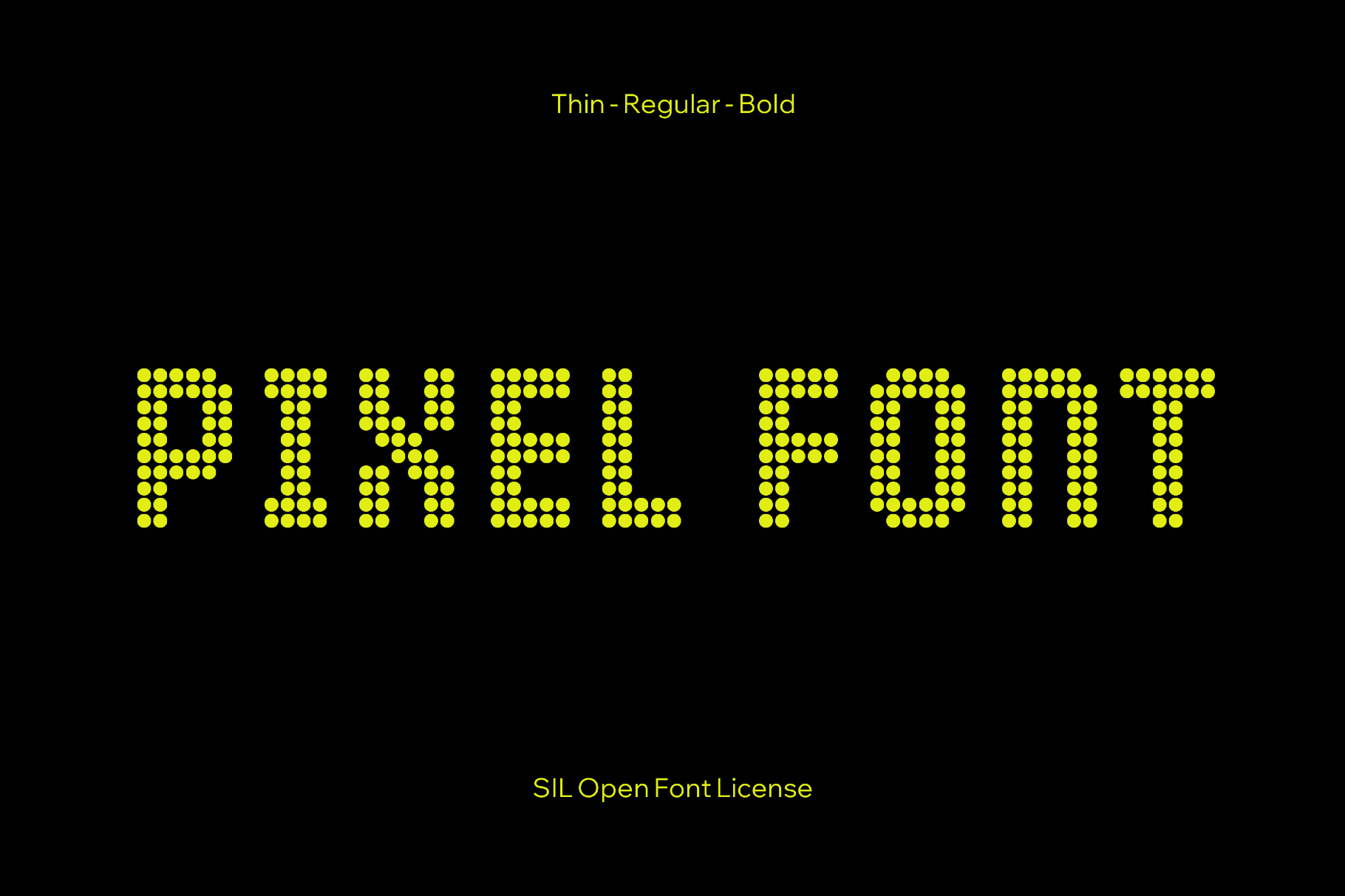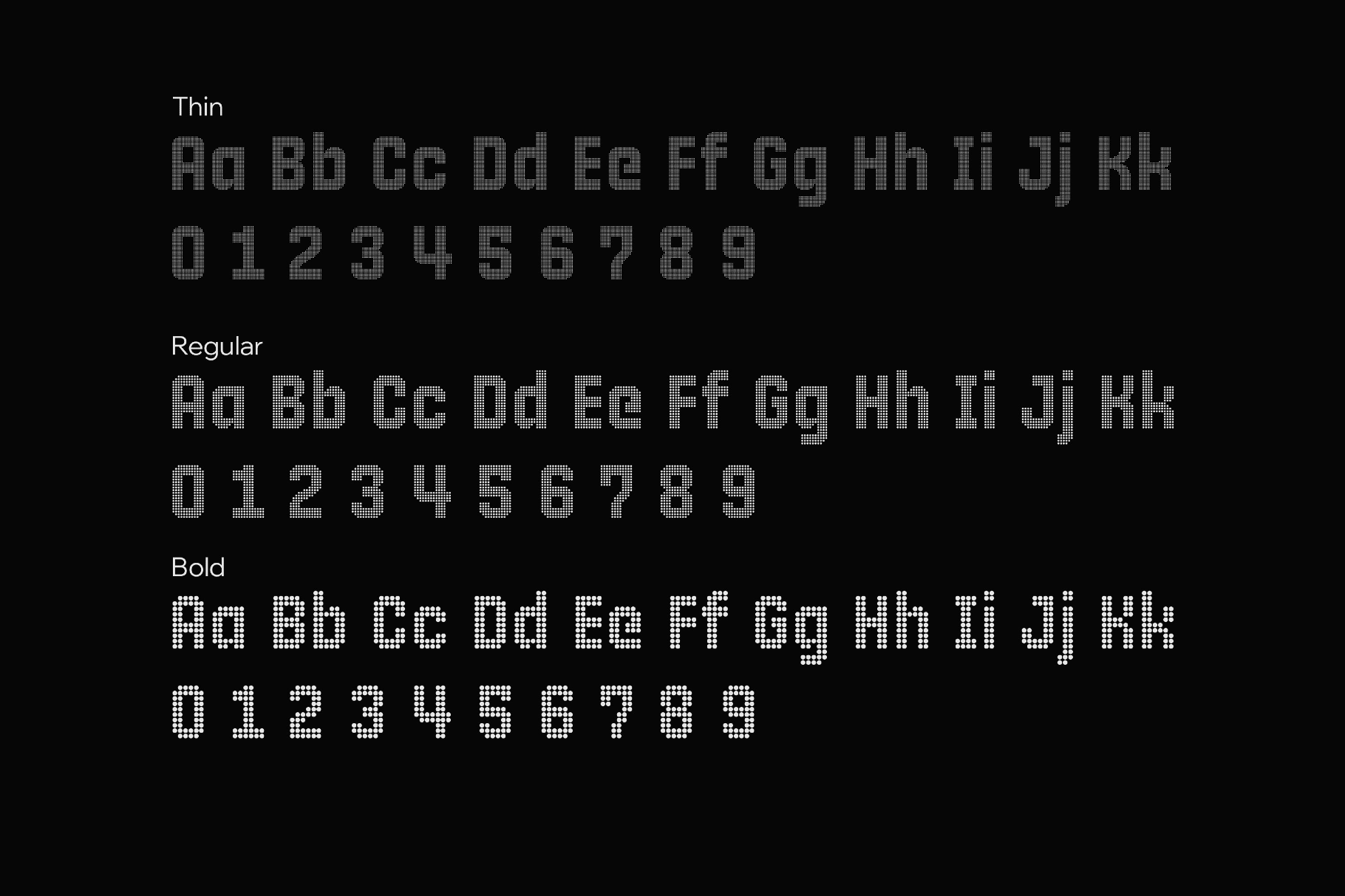
10 Pixel Font
Its letterforms are built on a strict 10-unit height, with semi-condensed shapes and evenly spaced blocks that keep every line compact, balanced, and technical. The font works well for bold landing-page hero text, game splash screens, menus, tech or digital-themed branding, UI section headers, app or launcher titles, poster campaigns, outdoor and indoor signage, large scoreboard-style readouts, and logo wordmarks.
- Three weights: Thin, Regular, and Bold.
- Uppercase and lowercase letters, numbers, punctuation, some ligatures, and symbols.
- International characters and extra symbols.